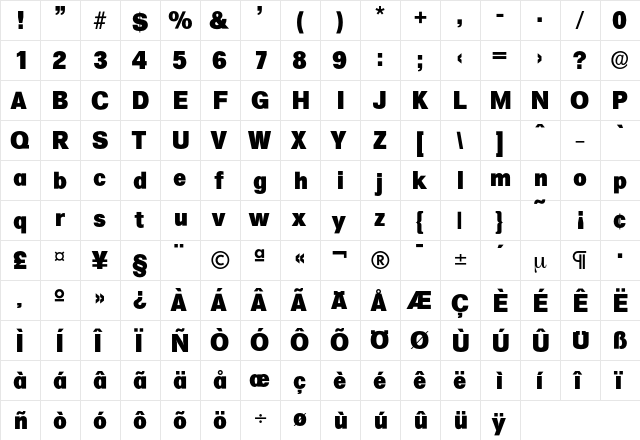
Formula-ExtraBold Regular
Design Context for Formula-ExtraBold Typeface
Formula-ExtraBold takes a measured approach to typography — its balanced proportions and neutral character make it a reliable workhorse for both digital and print work. Its bold stroke weight gives it real presence on the page.